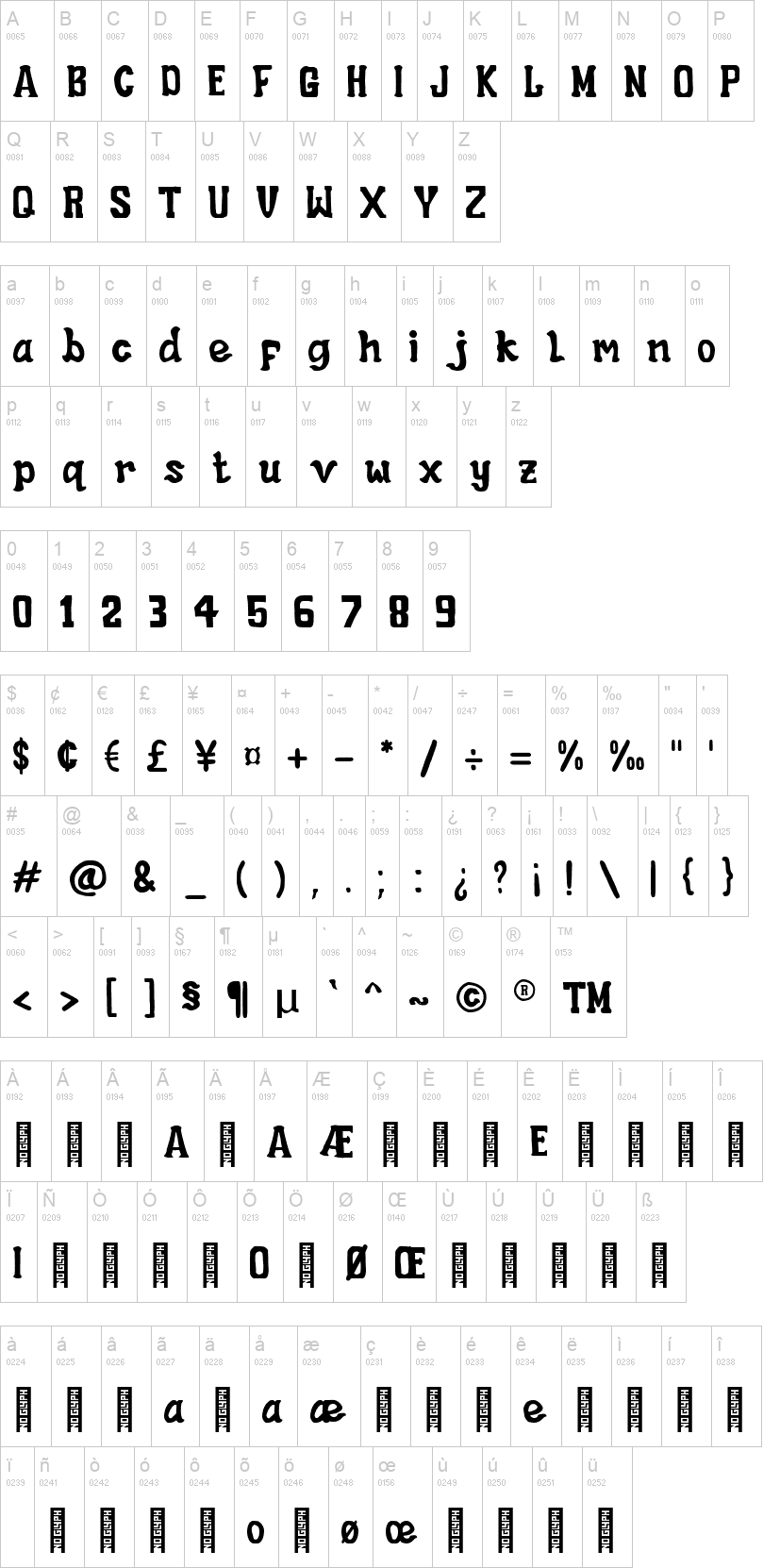
Note of the authorIntroducing our new Font : Tagihan is a modern display font, good use for Logo Design, pamphlets, Billboard, Flyer, and many more. support multi language